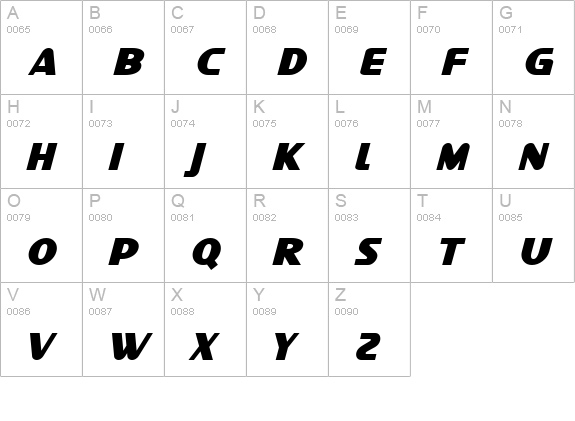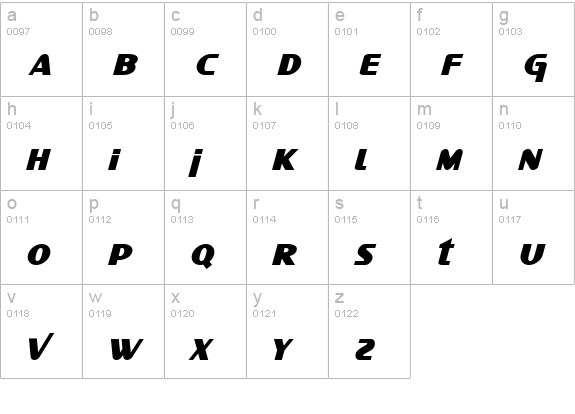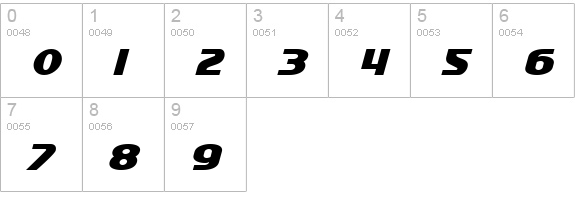
SF Intellivised Bold Italic is a strong, high-contrast, italic variant in the SF typeface family \xE2\x80\x94 well suited to headlines, attention-grabbing titles, and strong calls-to-action.
Introducing SF Intellivised Bold Italic, a font that epitomizes the perfect blend of futuristic sophistication and boldness. Designed with meticulous attention to detail, this font exudes a sense of modernity while retaining a timeless appeal. With its sleek, streamlined letterforms and italicized slant, SF Intellivised Bold Italic effortlessly captures attention and commands a strong presence. Its bold weight adds an extra layer of impact, making it ideal for headlines, titles, and branding projects that require a bold statement. This font's intelligently crafted design ensures optimal legibility, even at small sizes, making it suitable for various applications across print and digital platforms. Whether it's on a billboard, a website, or a magazine spread, SF Intellivised Bold Italic is guaranteed to make a lasting impression. One of the most remarkable aspects of SF Intellivised Bold Italic is that it is freely available for download at FontsMarket.com. This means that designers, creatives, and typographers can easily access this captivating font without any barriers. Its availability for free enables a wide range of projects to benefit from its unique charm and versatility. So, whether you're working on a futuristic sci-fi movie poster, a tech-inspired website, or a cutting-edge magazine layout, SF Intellivised Bold Italic stands ready to elevate your designs to the next level. Download it now for free at FontsMarket.com and unlock its potential to transform your creative endeavors into captivating masterpieces.